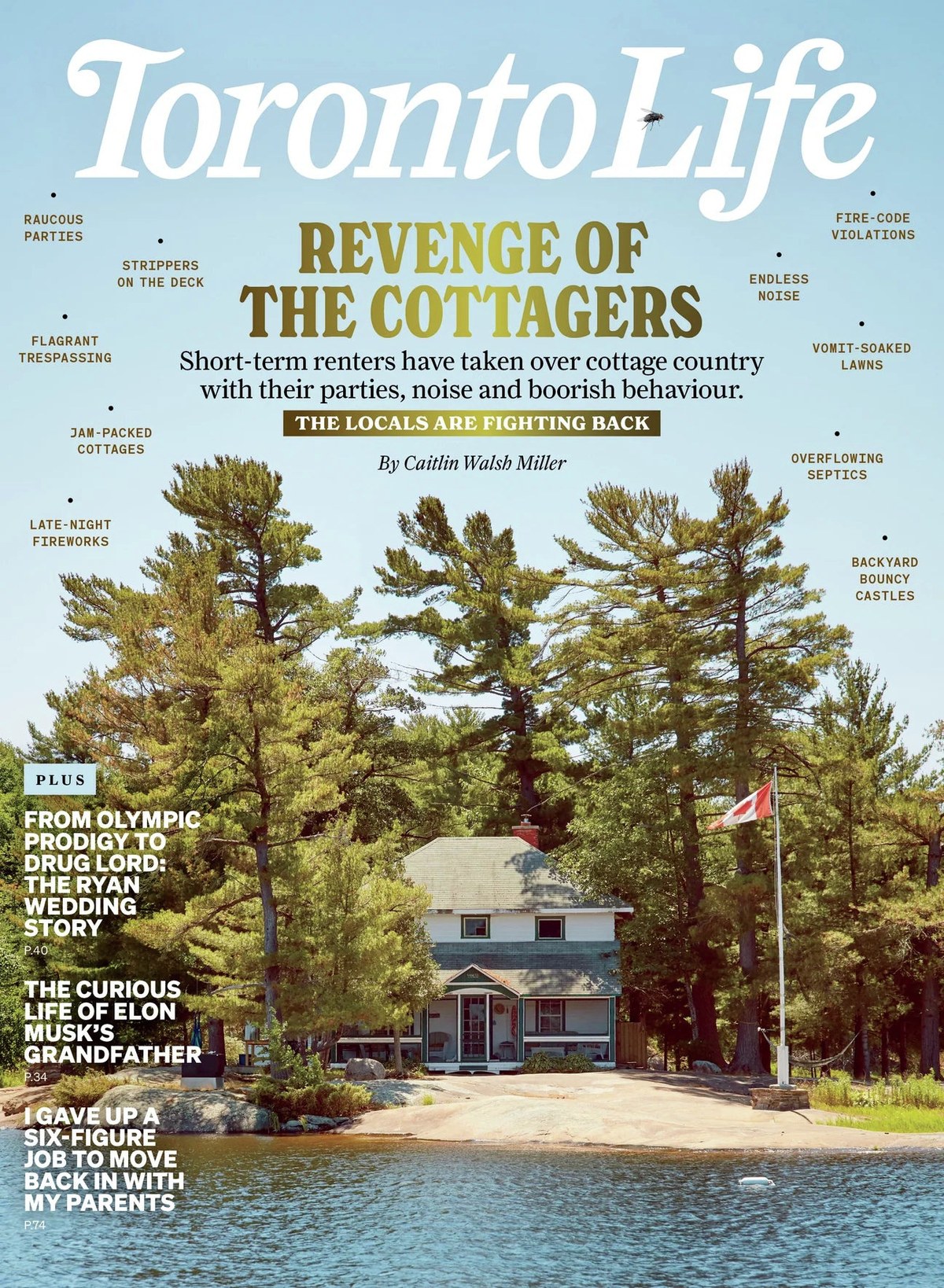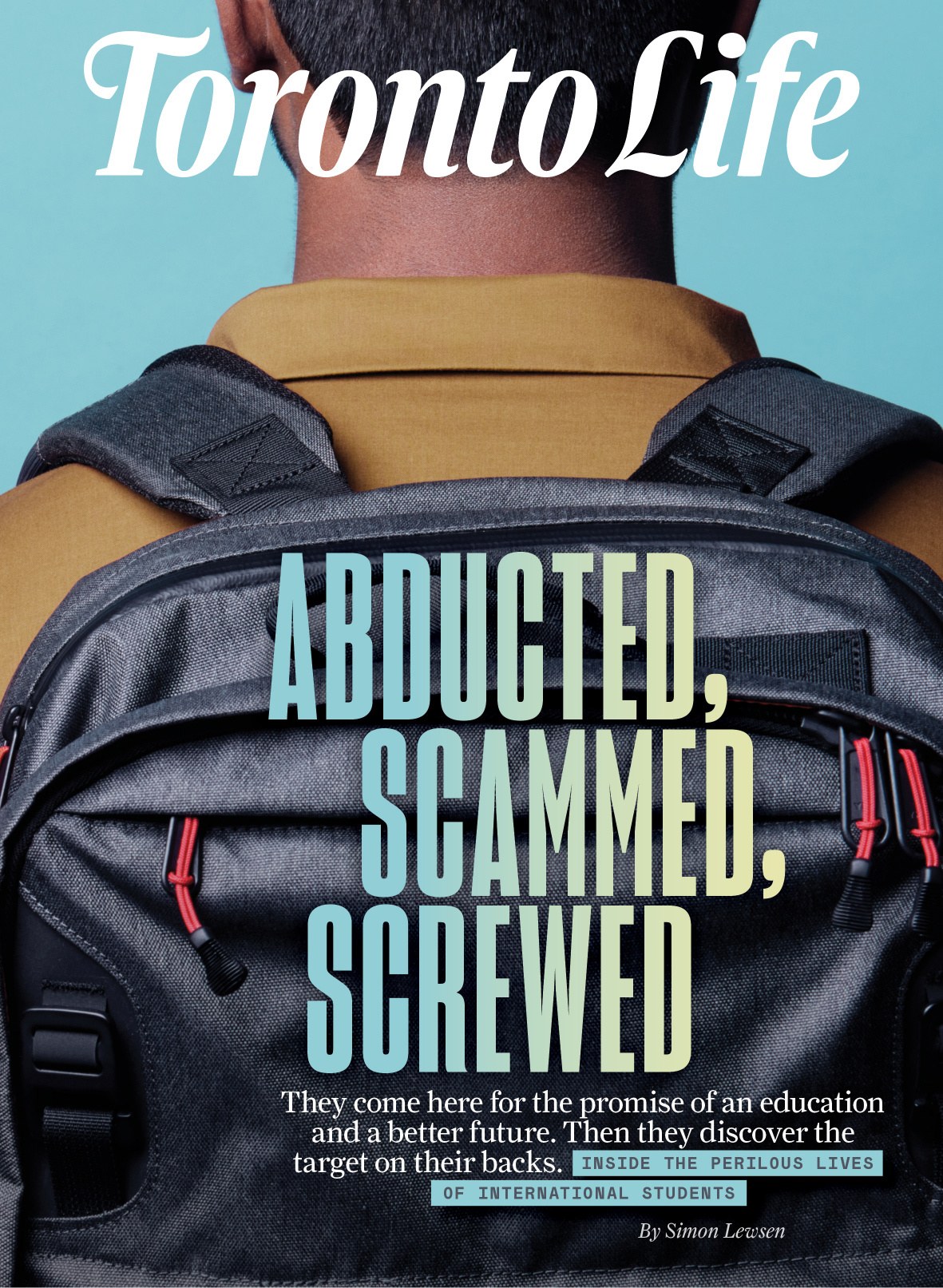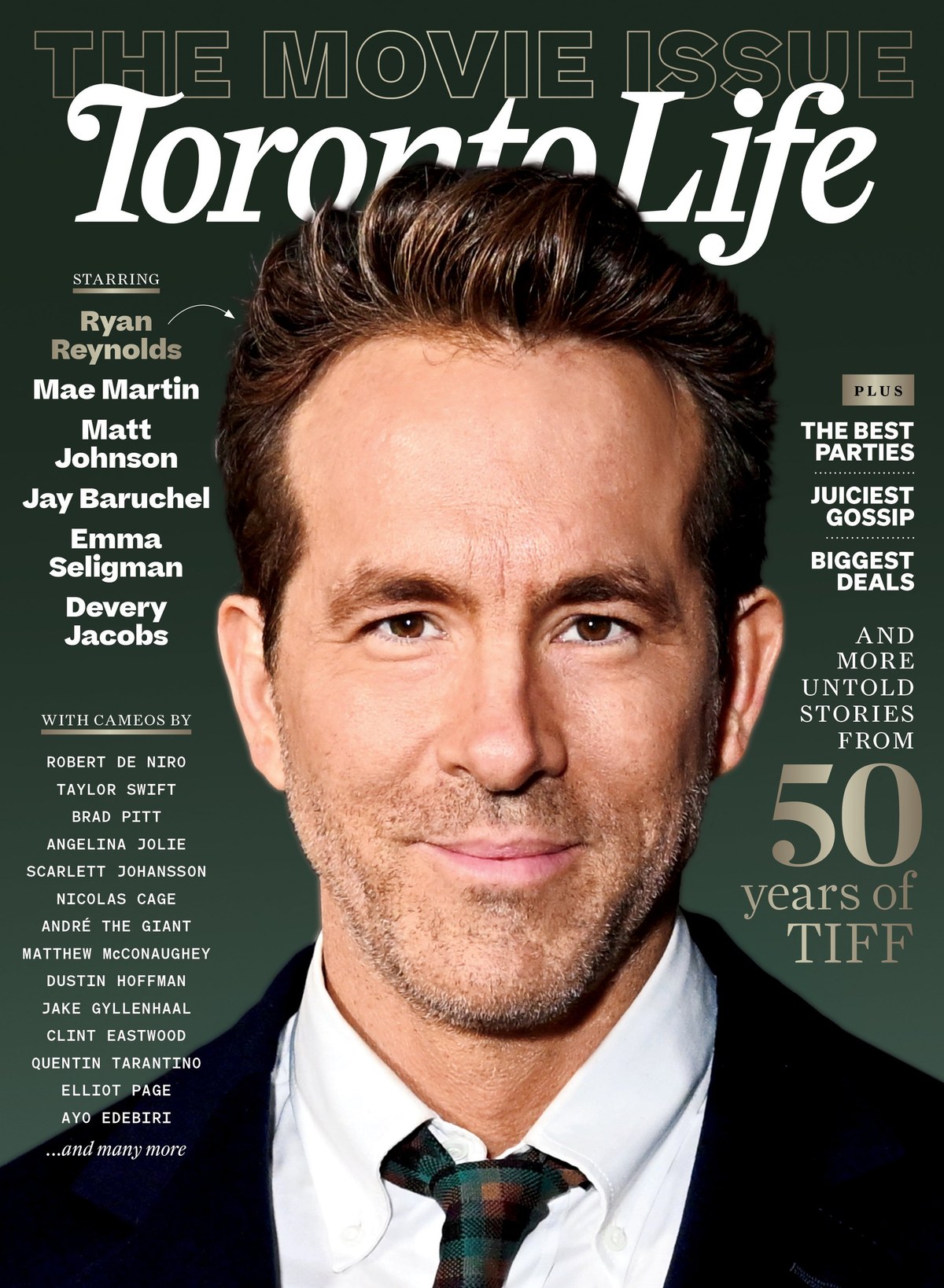
Weight range of the sloped roman forms.
Colleen and her team ruled out the sans options first, and dismissed anything that was too nostalgic for the original logotype, or generally too historical, focusing us on serif italics in title case. After our second round of work, she mentioned Farnham again, musing that the right nameplate would be “Farnham, but not Farnham,” and that it should look drawn, not just set with type. At this point we enlisted our colleague Julien Priez to take over the project, and he easily satisfied this difficult brief. After completing a round of hand sketches, Julien sent over two versions of the logotype: one more like a sloped roman, the other more like a traditional cursive italic, in a range of weights. Colleen and her team preferred the sloped roman, which has now been implemented across the brand, with the single-line version on the cover of the magazine, the stacked version on the website, and the TL icon on social media.